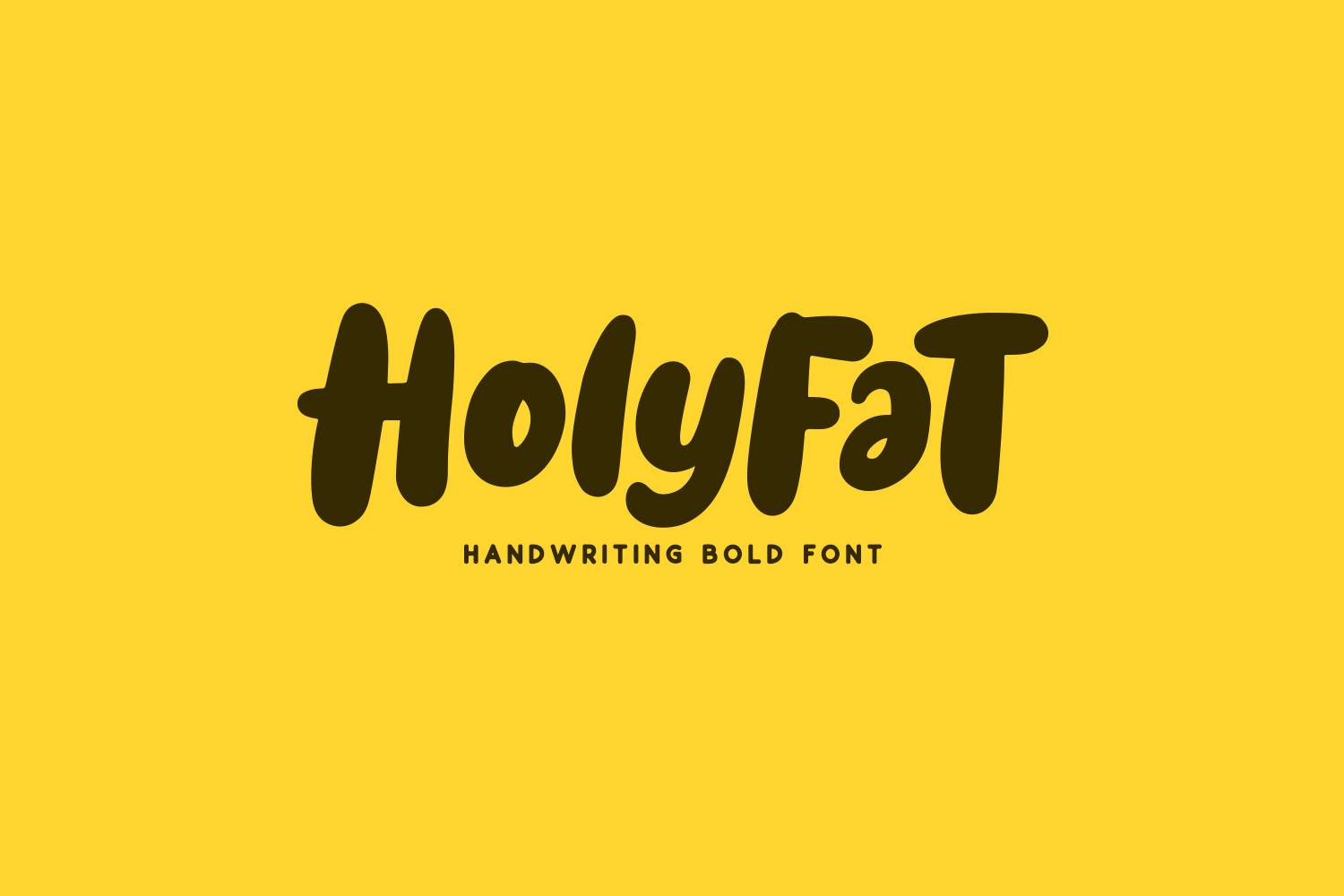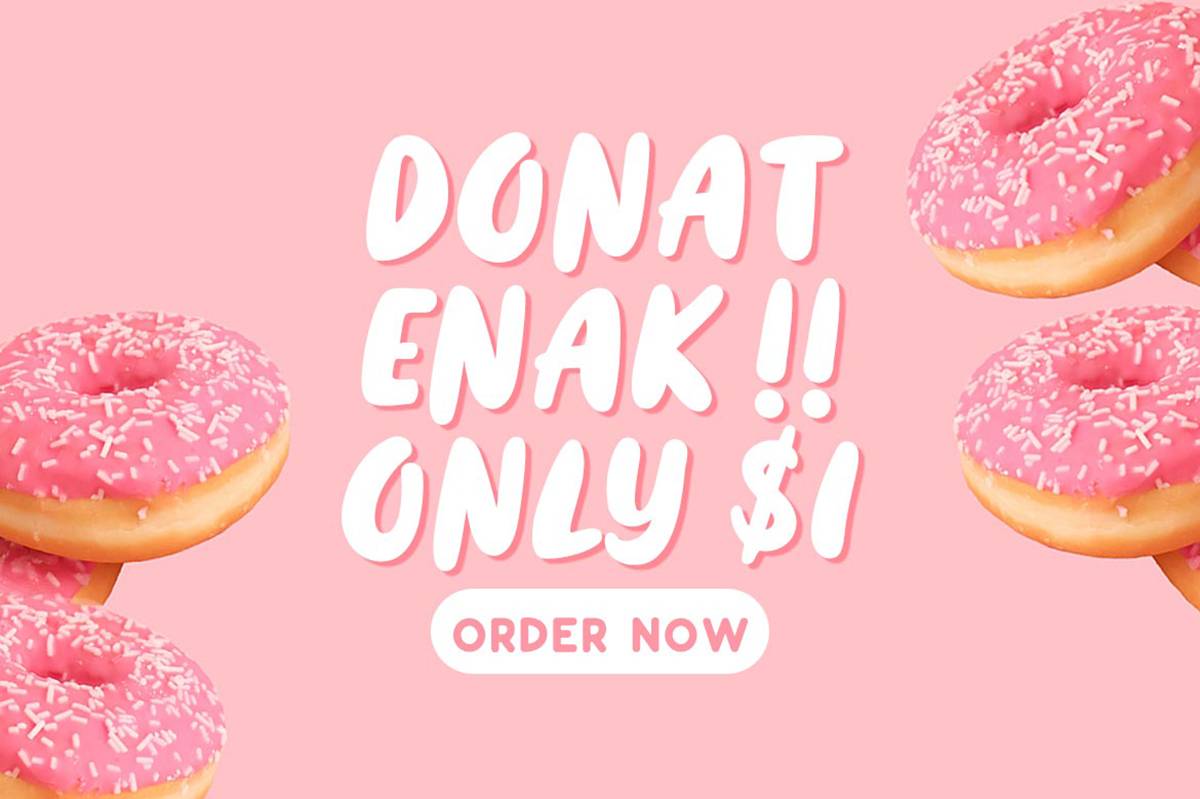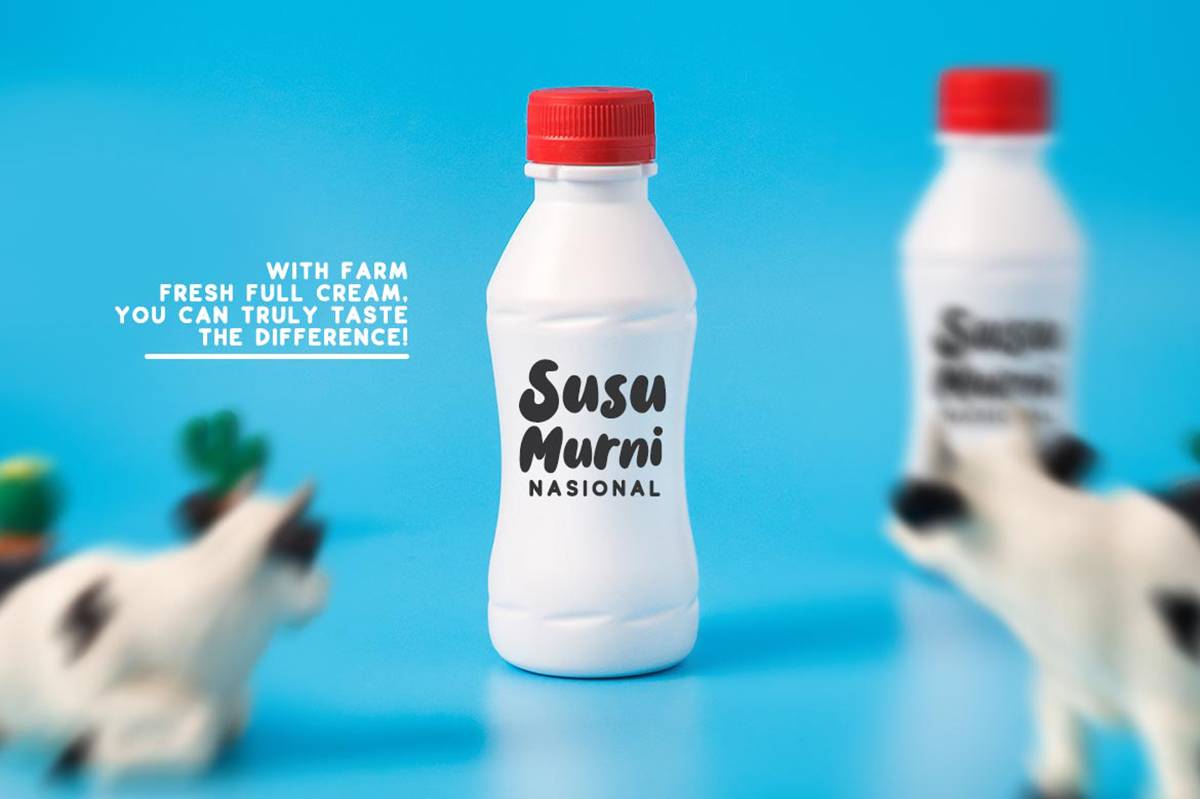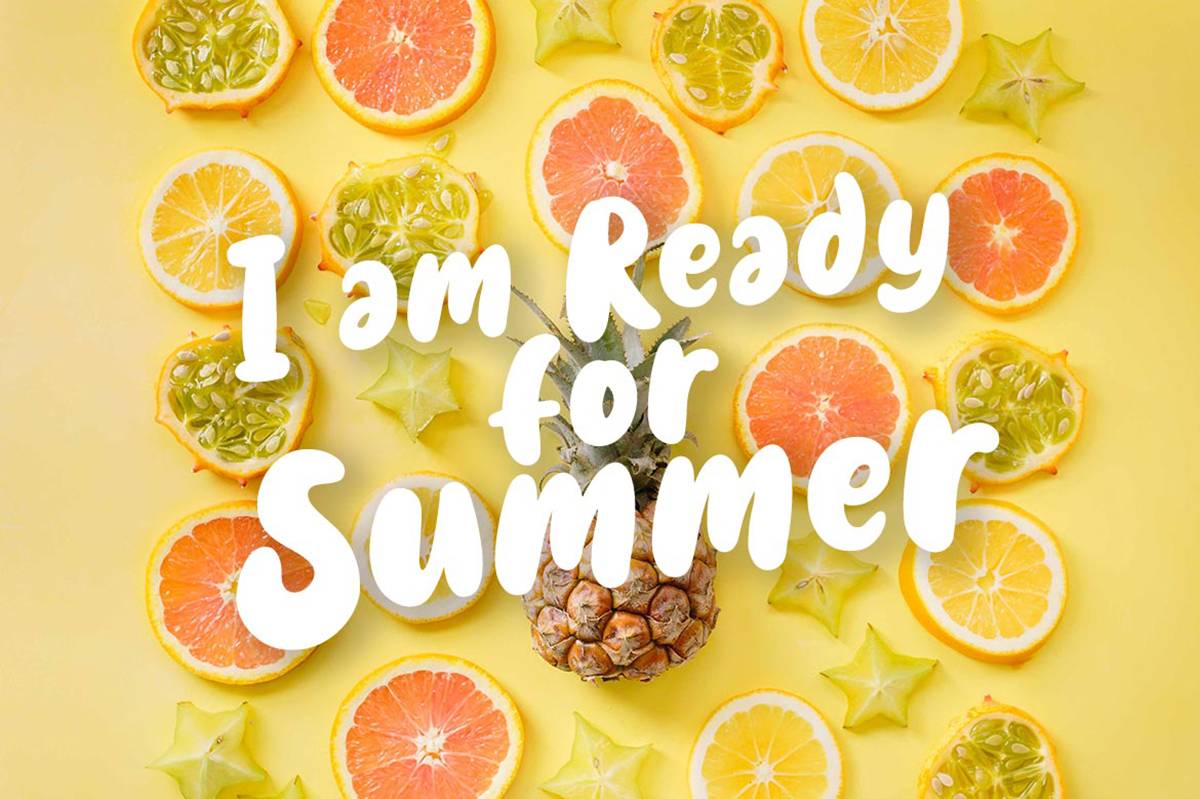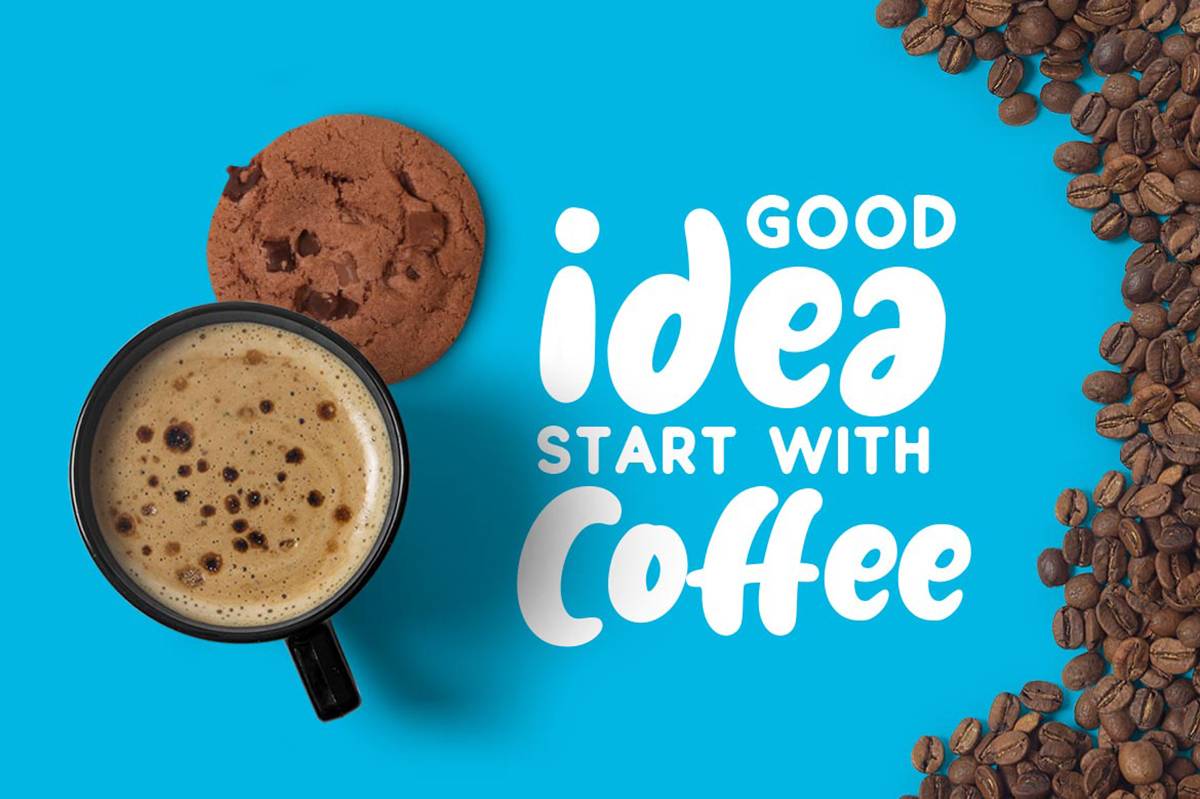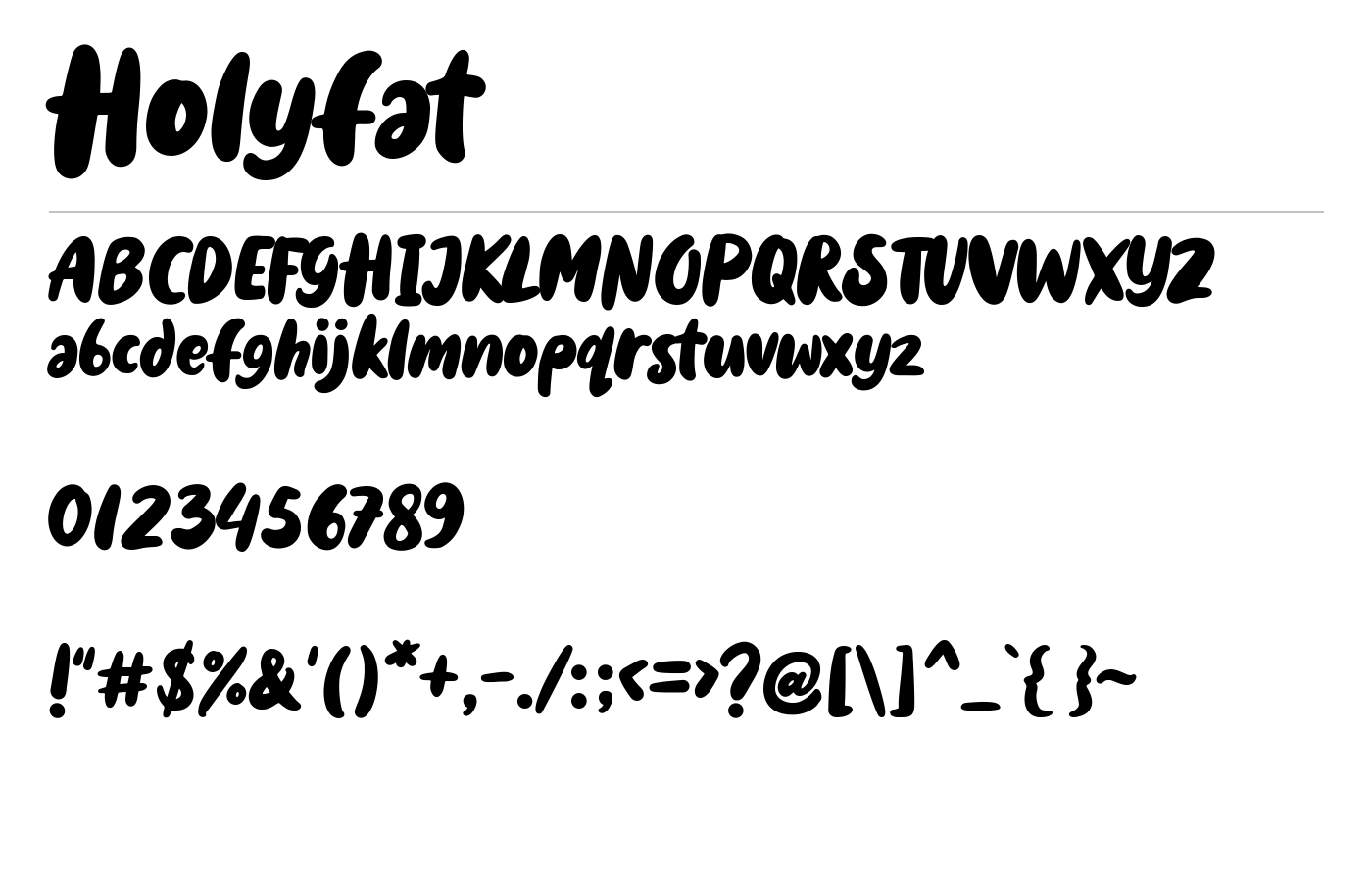
Holyfat is a bold, playful sans serif font with a hand-drawn, brush-like style that gives it an energetic and casual feel. Its rounded, thick strokes and lively letterforms make it perfect for designs that want to convey friendliness and creativity, such as logos, headlines, and packaging for youthful or informal brands. This font works well when you need a fun and approachable look that grabs attention without feeling too serious.
Holyfat Font
About Holyfat Font
| Font family | Holyfat Font |
| Designer | Weape Studio |